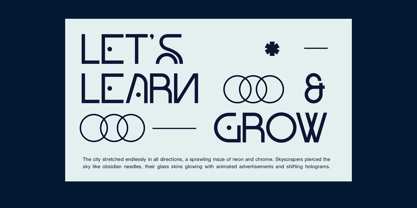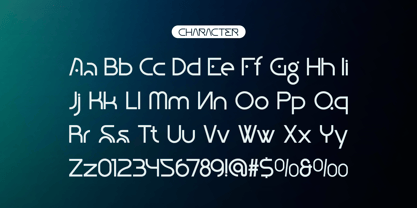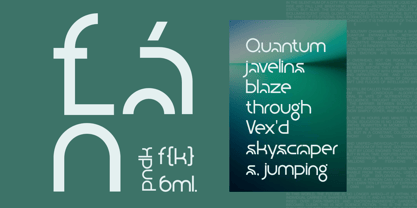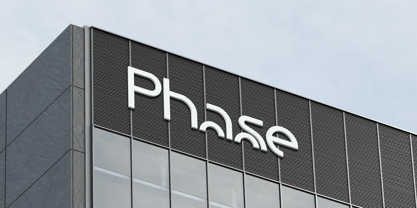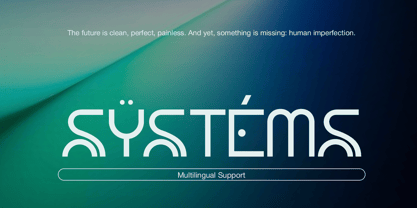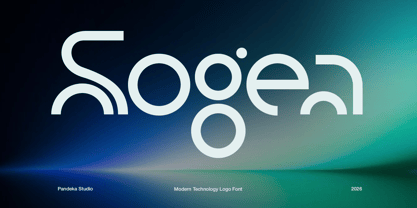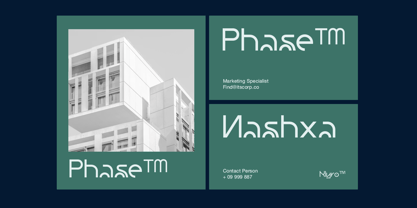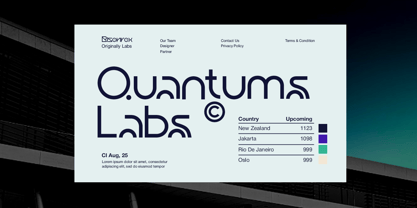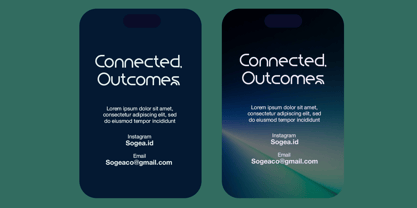
Sogea
Sogea is a modern display font crafted for technology-driven branding, futuristic identities, and clean visual communication. Featuring sleek geometric letterforms with smooth curves and minimalist construction, it delivers a sophisticated, innovative, and highly recognizable appearance that is perfect for contemporary logo design.
Designed in 1 style: Regular, Sogea offers exceptional versatility for creating modern logos, technology startups, software companies, AI branding, mobile applications, websites, corporate identities, digital products, presentations, packaging, and editorial layouts. Its refined futuristic aesthetic combines clarity with originality, making Sogea an excellent choice for businesses and designers seeking a clean, professional, and forward-thinking typographic style.
• Full Character Set: Uppercase, lowercase, numbers, symbols, and punctuation